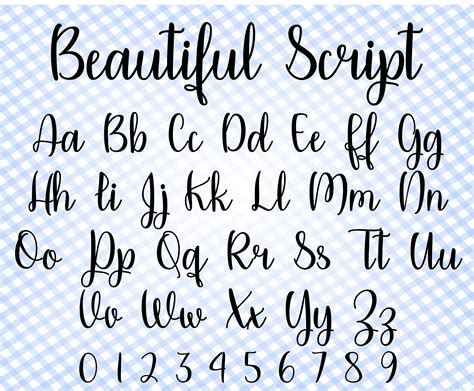
Cursive Writing Font
In the digital age, where typing and texting have become the norm, the art of handwriting often takes a backseat. However, there is a timeless elegance to cursive handwriting fonts that continues to captivate many. These fonts not only add a personal touch to written communication but also evoke a sense of nostalgia and sophistication. Whether you are a calligraphy enthusiast, a designer looking to add a unique flair to your projects, or simply someone who appreciates the beauty of handwritten text, cursive handwriting fonts offer a world of possibilities.
Understanding Cursive Handwriting Fonts
Cursive handwriting fonts are designed to mimic the fluid, connected style of traditional cursive writing. Unlike block letters, which are distinct and separate, cursive letters flow into one another, creating a seamless and continuous line. This style of writing has been a staple in education for centuries, teaching children to write in a way that is both efficient and aesthetically pleasing.
There are several types of cursive handwriting fonts, each with its own unique characteristics. Some of the most popular styles include:
• Spencerian Script: Known for its elegant and flowing lines, Spencerian script is often used in formal invitations and certificates.
• Copperplate Script: This style features thin, delicate lines and is often used in calligraphy and decorative writing.
• English Roundhand: A more modern style of cursive, English Roundhand is characterized by its rounded letters and is commonly used in everyday writing.
• Italic Script: This style combines elements of both cursive and italic writing, resulting in a clean and legible font.
The Benefits of Using Cursive Handwriting Fonts
Incorporating cursive handwriting fonts into your projects or personal correspondence offers numerous benefits. Here are some of the key advantages:
• Enhanced Aesthetics: Cursive fonts add a touch of elegance and sophistication to any written material, making it stand out from standard block text.
• Personal Touch: Using cursive handwriting fonts can make your writing feel more personal and heartfelt, especially in invitations, letters, and greeting cards.
• Improved Readability: Despite their flowing nature, many cursive fonts are designed to be highly readable, ensuring that your message is clear and easy to understand.
• Versatility: Cursive handwriting fonts can be used in a wide range of applications, from digital design projects to handwritten notes and everything in between.
How to Choose the Right Cursive Handwriting Font
With so many cursive handwriting fonts available, choosing the right one for your needs can be a daunting task. Here are some tips to help you make an informed decision:
• Consider the Purpose: Think about where and how you will be using the font. For example, a formal invitation might require a more elegant and sophisticated font, while a casual note could benefit from a more playful and whimsical style.
• Legibility: Ensure that the font is easy to read, especially if it will be used in a professional or academic setting.
• Style and Aesthetics: Choose a font that complements the overall design and aesthetic of your project. Consider factors such as the color scheme, layout, and other design elements.
Here is a table to help you compare some popular cursive handwriting fonts:
Font Name Style Best For
Great Vibes Elegant and flowing Weddings, invitations, and formal events
Pacifico Playful and whimsical Casual notes, greeting cards, and personal correspondence
Allura Modern and sleek Digital design projects, logos, and branding
Dancing Script Dynamic and energetic Headlines, posters, and promotional materials
Incorporating Cursive Handwriting Fonts into Your Projects
Once you have chosen the perfect cursive handwriting font, the next step is to incorporate it into your projects. Here are some tips to help you get started:
• Digital Design: Use cursive fonts in graphic design software such as Adobe Illustrator or Photoshop to create stunning visuals for your projects.
• Web Design: Incorporate cursive fonts into your website design to add a personal touch and enhance the overall aesthetic.
• Print Design: Use cursive fonts in print materials such as brochures, flyers, and business cards to make them stand out.
• Handwritten Notes: Practice writing in cursive to add a personal touch to your handwritten notes and letters.